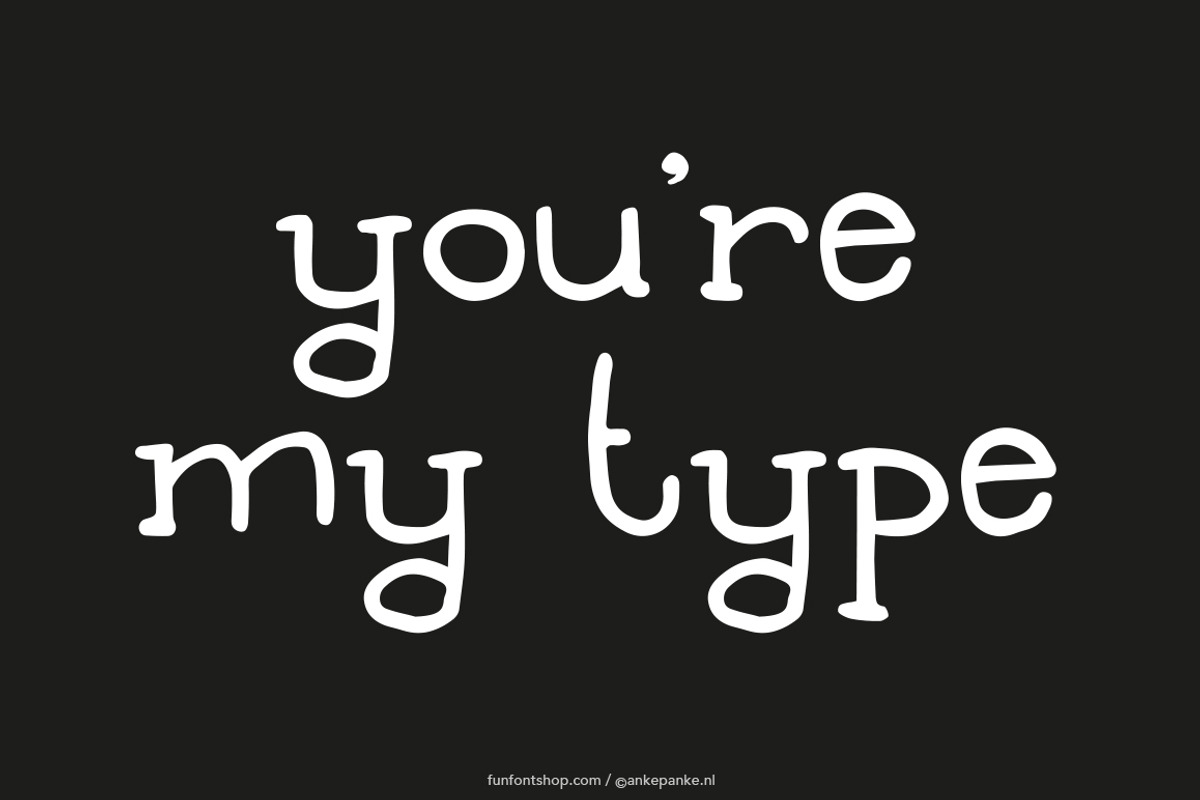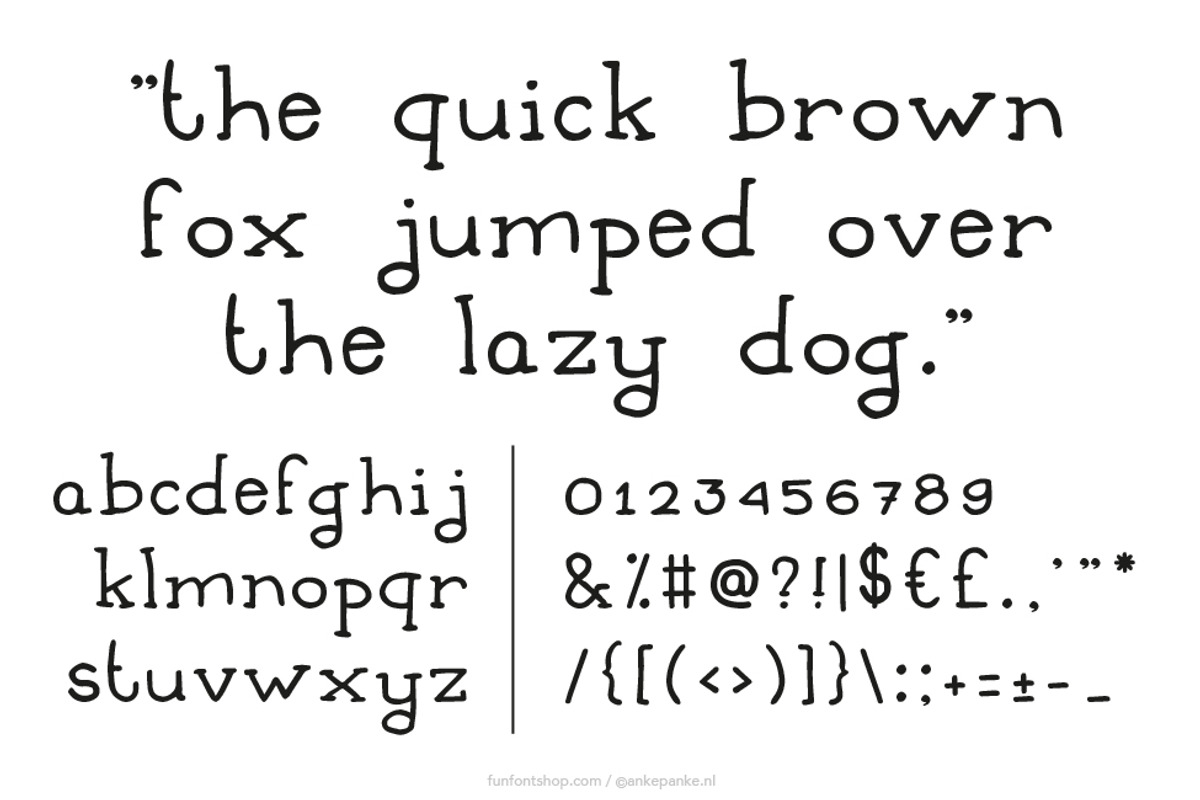
You're my type handmade font
Playful font inspired by old-fashioned typewriter. This font was first draw by hand, scanned, vectorized and converted to a TTF file so you type with it. They have some imperfections, but I believe that adds to the handmade feeling.
- Letters lowercase and numbers
- Punctuation !?#%&*+=-_,.:;'"/|£€$@({[]})